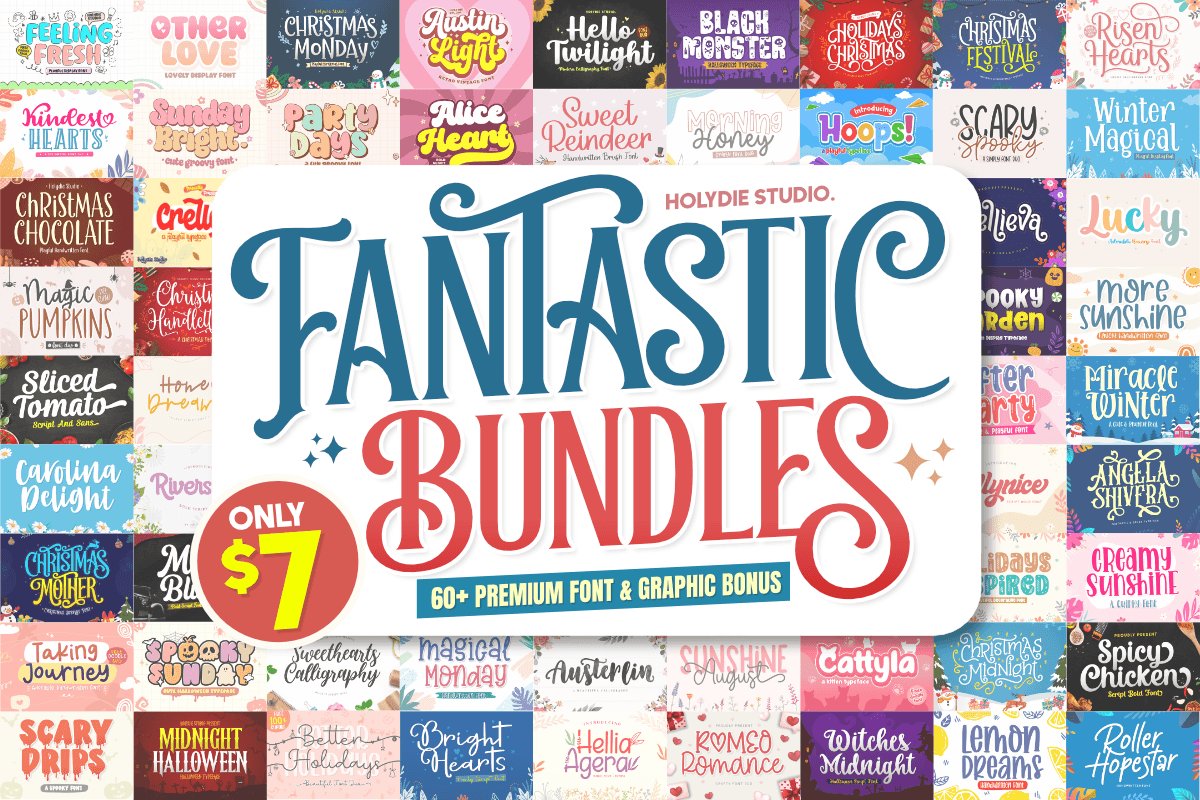
Fantastic Font Bundle - 60 Premium Fonts
The Fantastic Font Bundle features 60 stunning fonts and bonus graphics. Perfect for logos, branding, t-shirts, packaging, mugs, quotes, posters, and more. Valued at $837